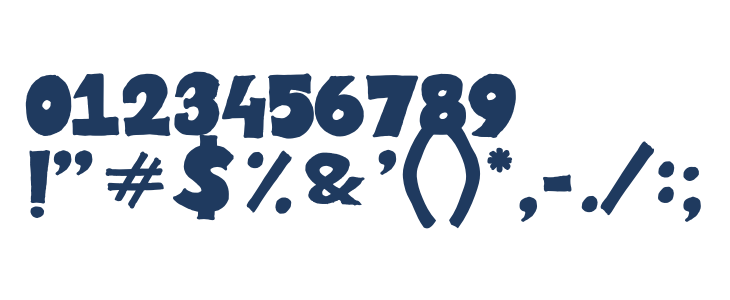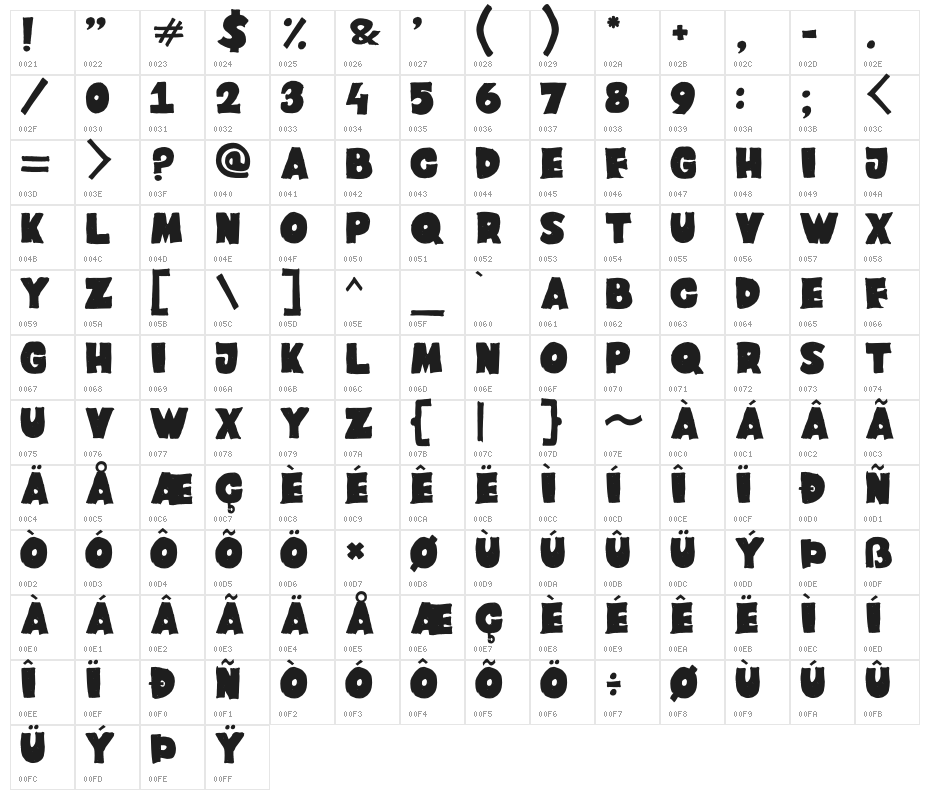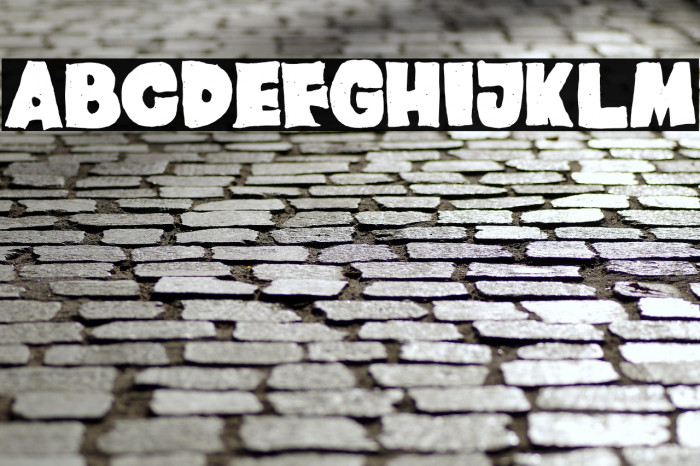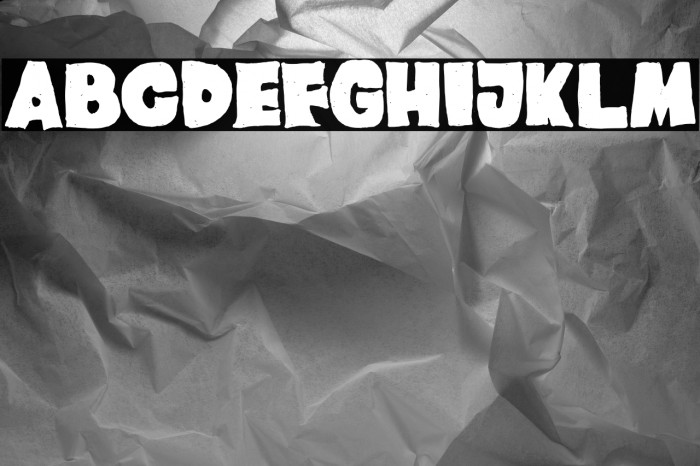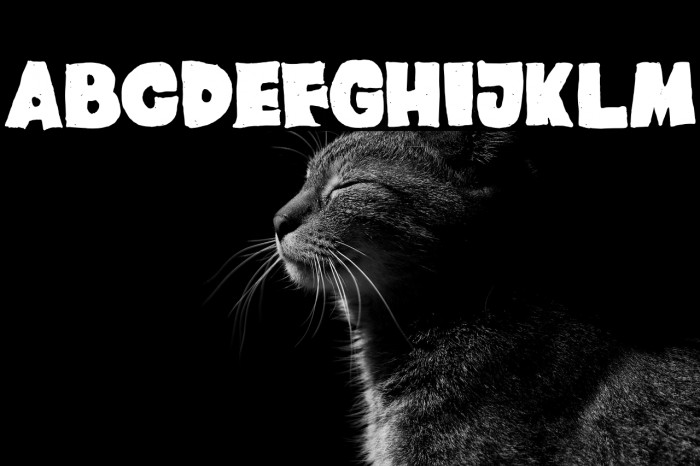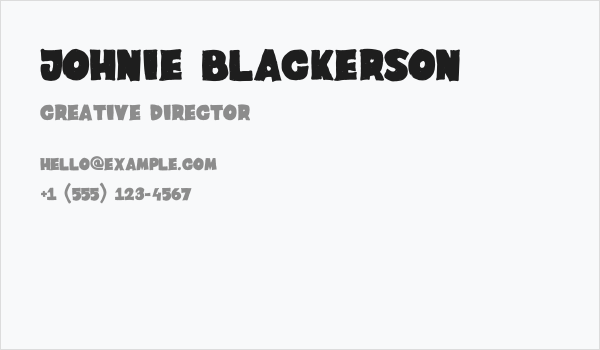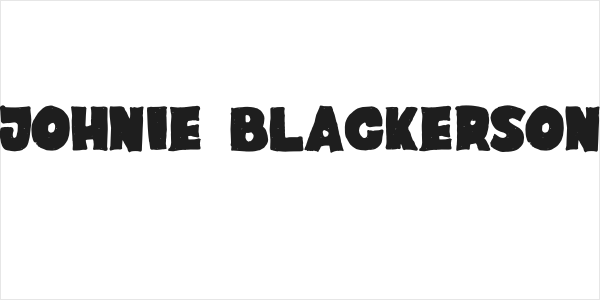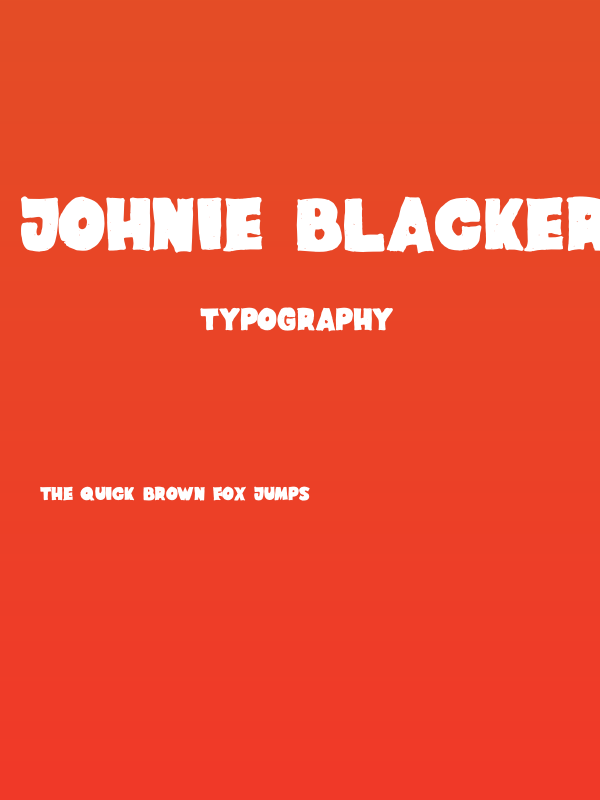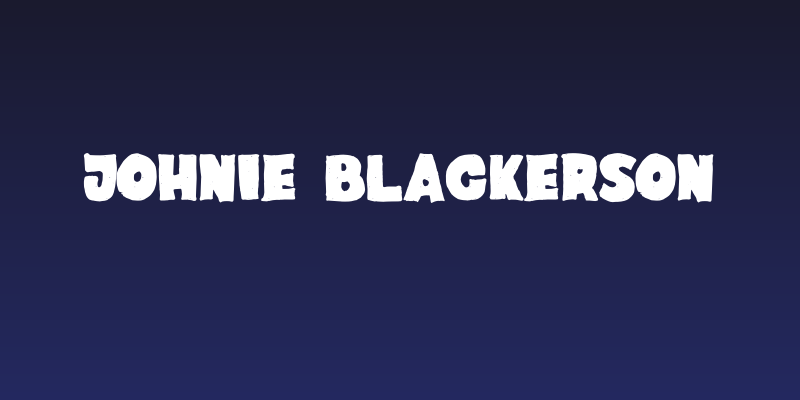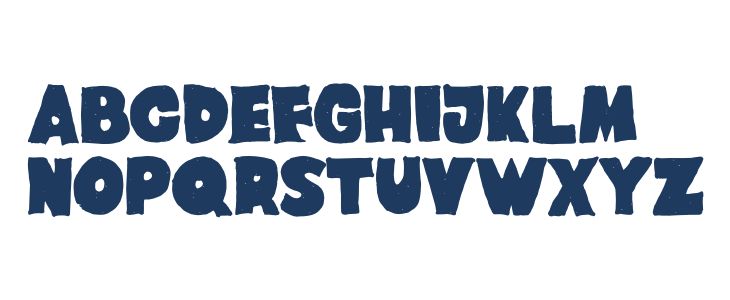
Johnie Blackerson Font
Johnie Blackerson Description
This font features a bold and expressive style with a hand-drawn appearance. The letters are thick and slightly irregular, giving them a playful and dynamic feel. The uppercase and lowercase characters maintain a consistent weight, contributing to a cohesive look. The numbers and special characters follow the same bold and quirky design, making them stand out. This font is perfect for projects that require a fun and eye-catching aesthetic, such as posters, comic books, or children's book covers. Its unique style ensures that any text will capture attention and convey a sense of creativity and energy.
| Proposed Projects | Ideal for posters, comic books, children's book covers, and any creative projects needing a bold statement. |